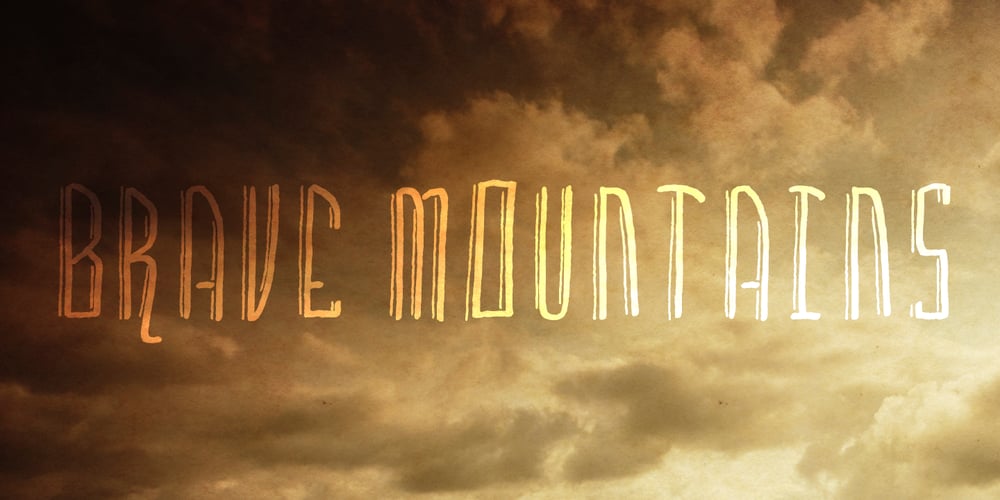
Brave Mountains
Brave Mountains font
Brave Mountains Font Family was designed by Matthew Tyndall and published by Dismantle Destroy. Brave Mountains contains 1 styles and family package options. This font was inspired by music from the band Silverstein.